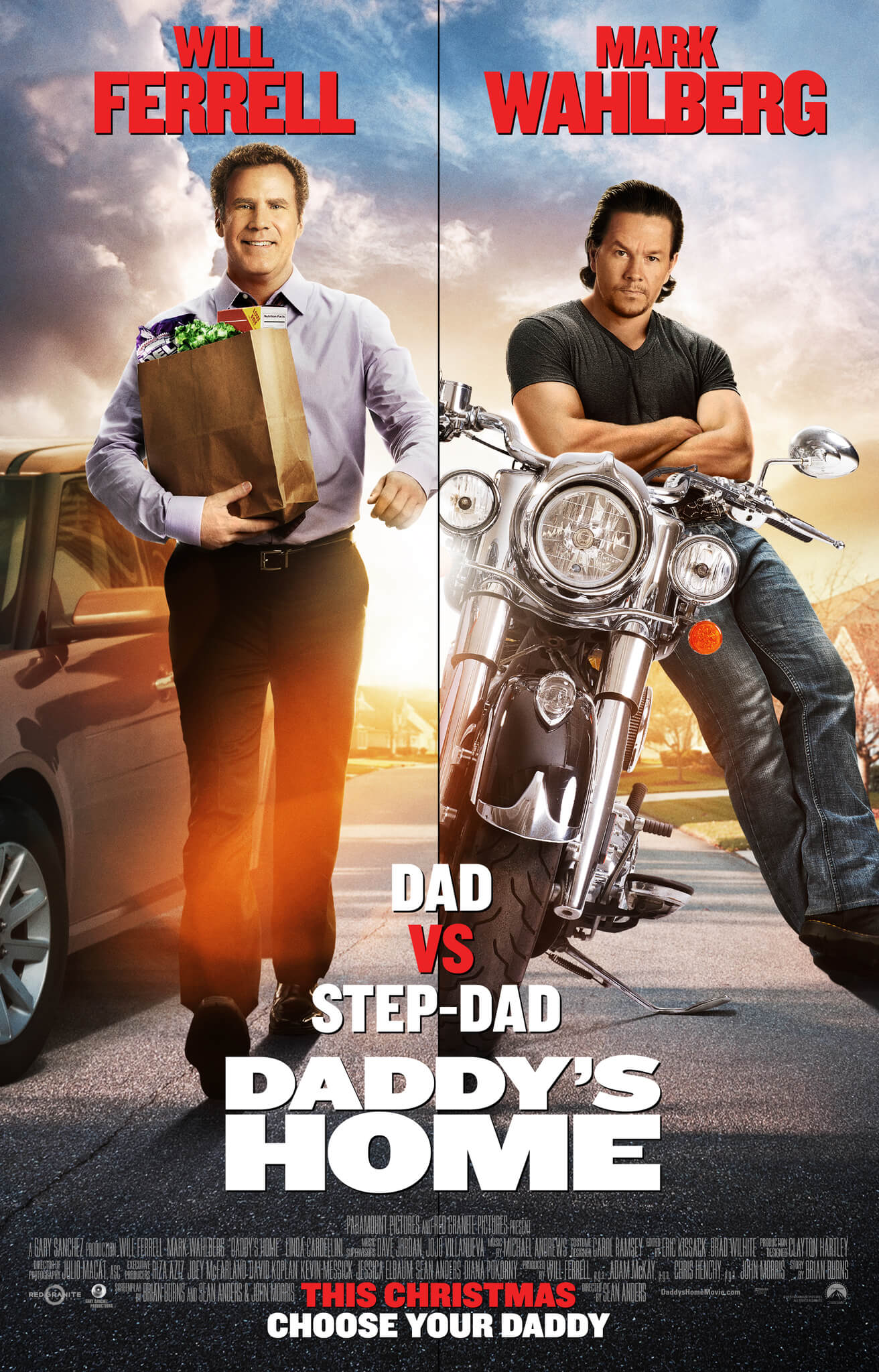
Daddy's Home Font
ComedyDaddy’s Home is a 2015 comedy film about a mild-mannered radio executive who competes with his wife's macho ex-husband for the affection of their children. The film stars Will Ferrell and Mark Wahlberg.
The film Daddy’s Home title on the poster is most probably set in a sans-serif typeface called Knockout No. 94 Ultimate Sumo. The Knockout typeface was created by Tobias Frere-Jones and Jonathan Hoefler, and was first made available through H&FJ in 1994.